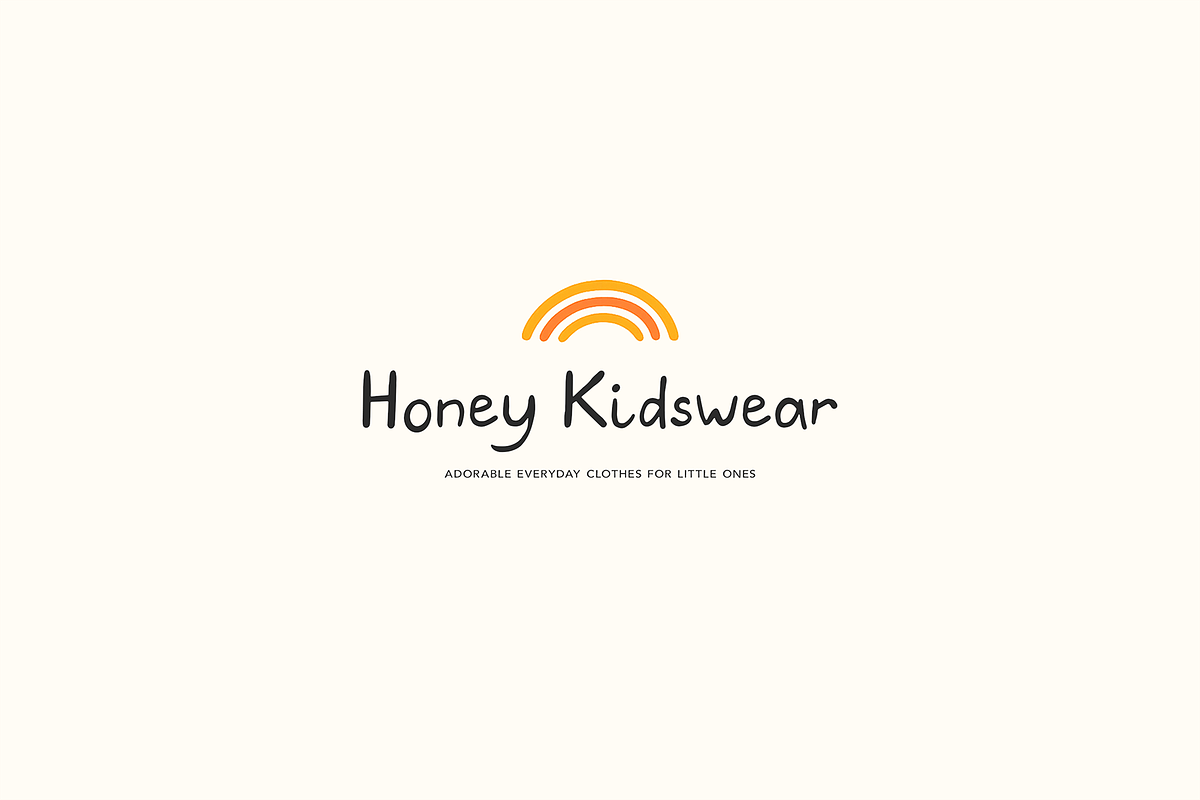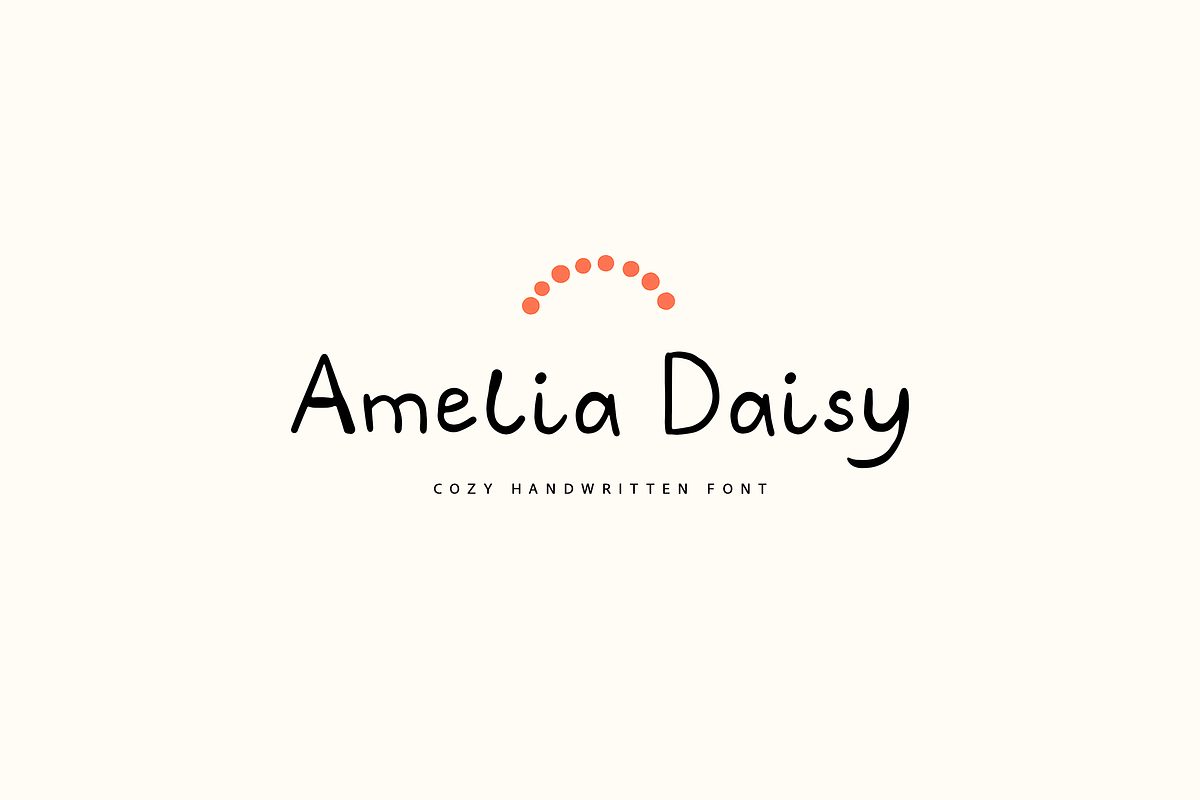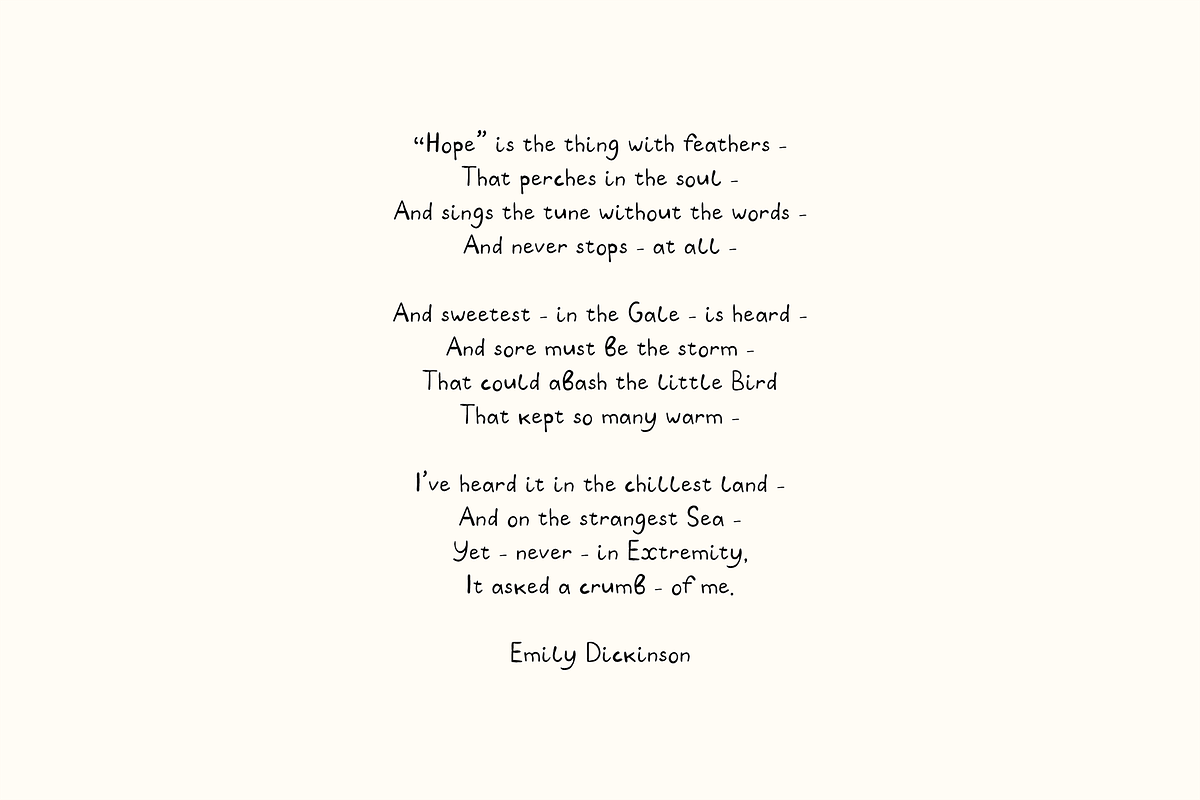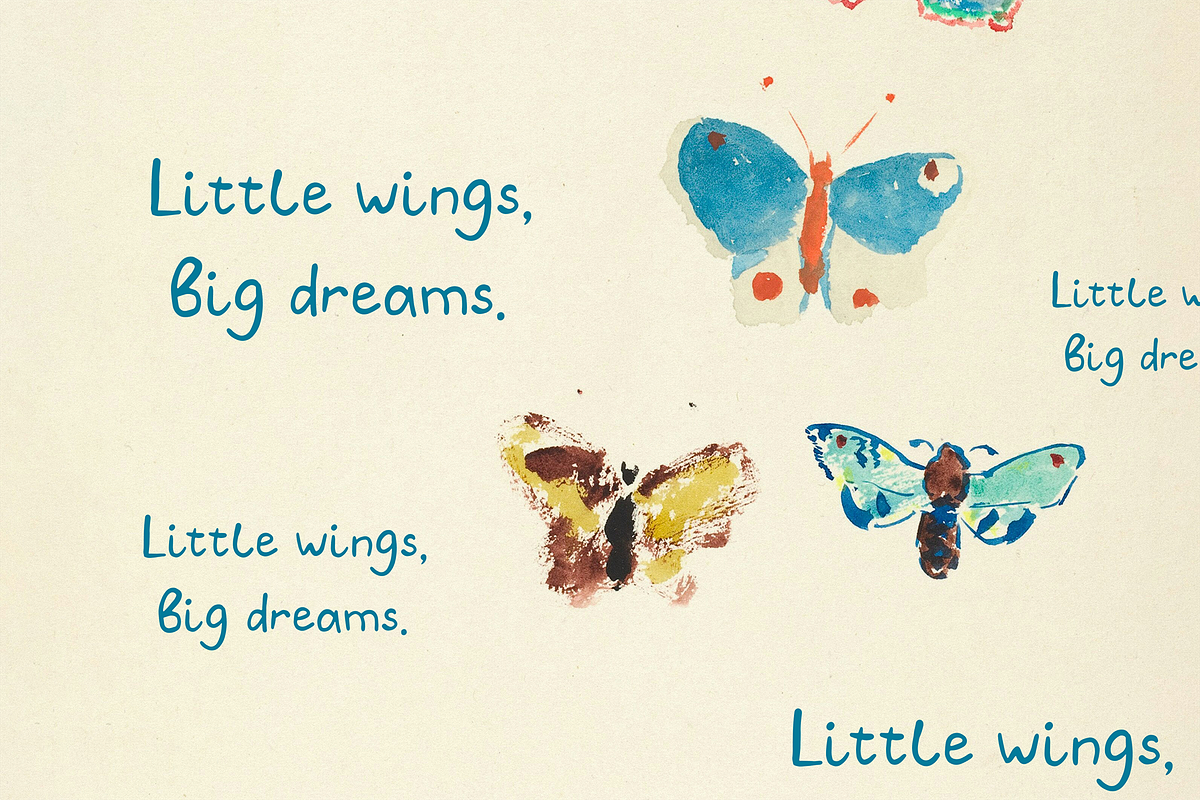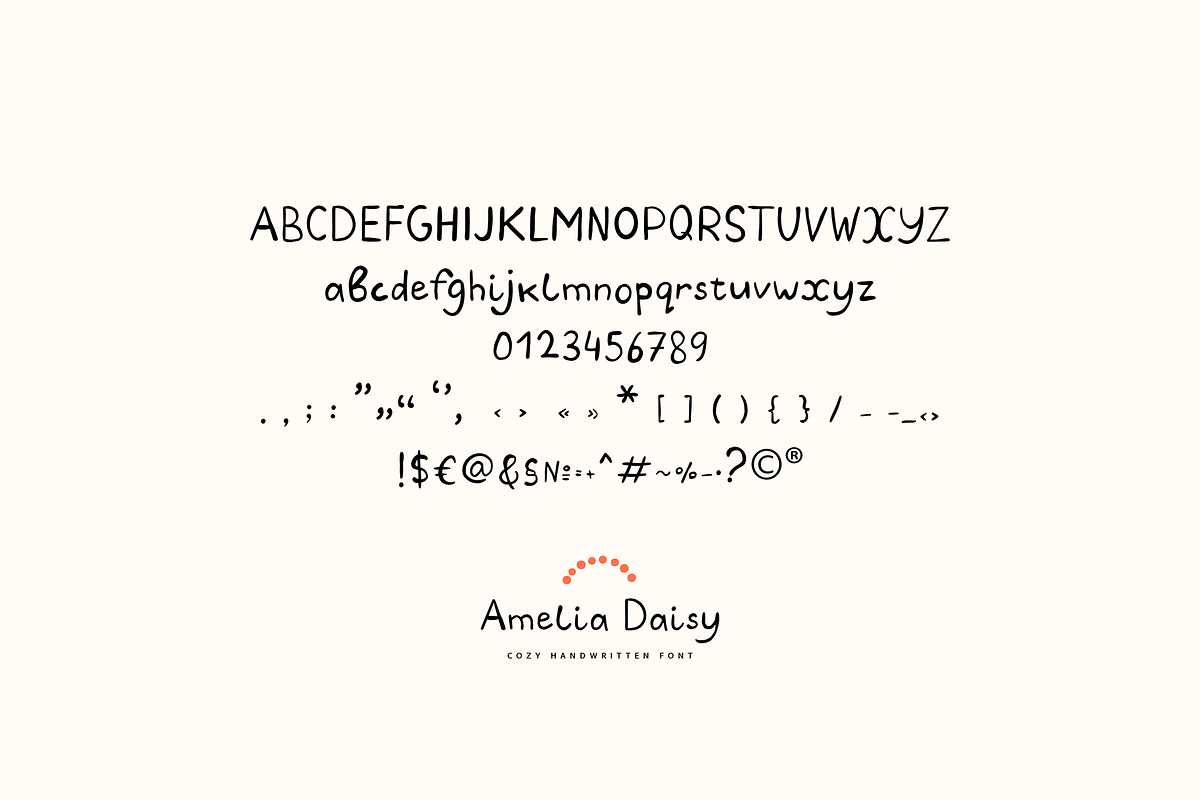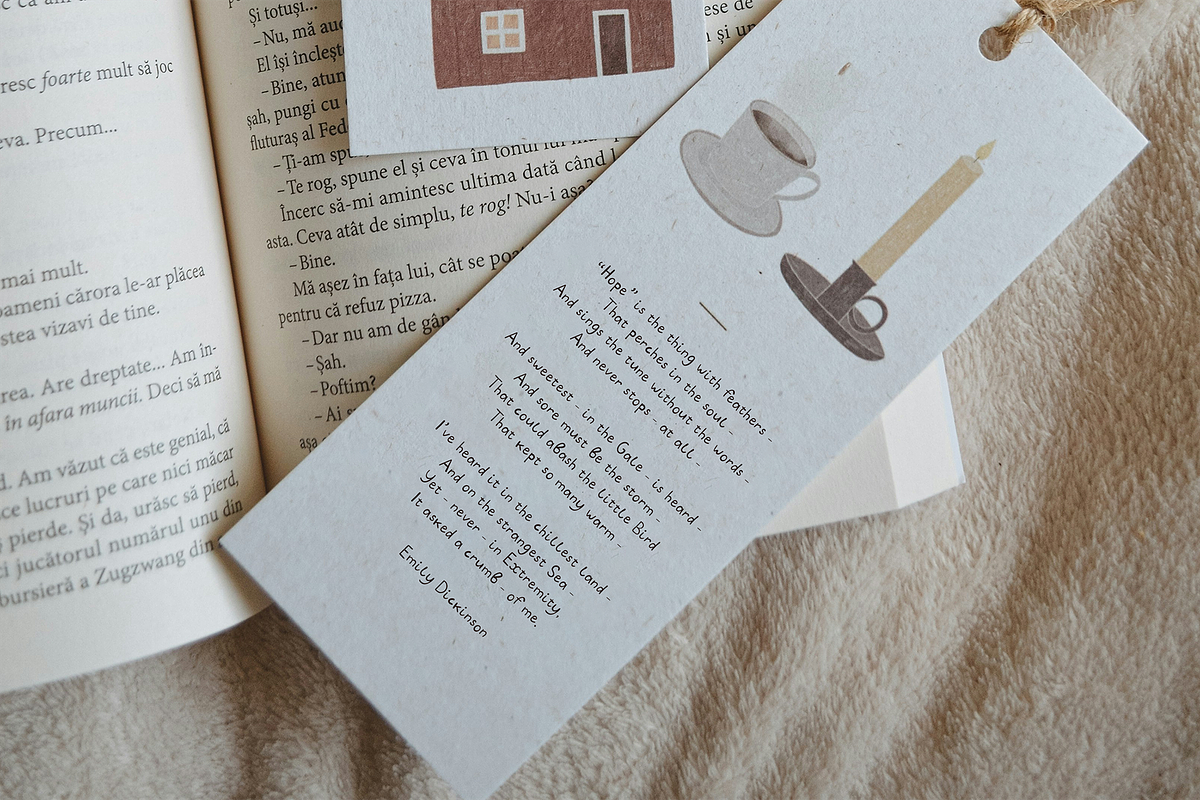
Amelia Daisy
Amelia Daisy is a sweet handwritten font inspired by soft pencil notes, childhood drawings and playful little details. It has a natural handmade look, perfect for warm, cute and creative projects.
Great for:
Kids clothing brands
Greeting cards
Stickers and labels
Nursery prints
Logos and packaging
Quotes and invitations
Cricut and Canva projects